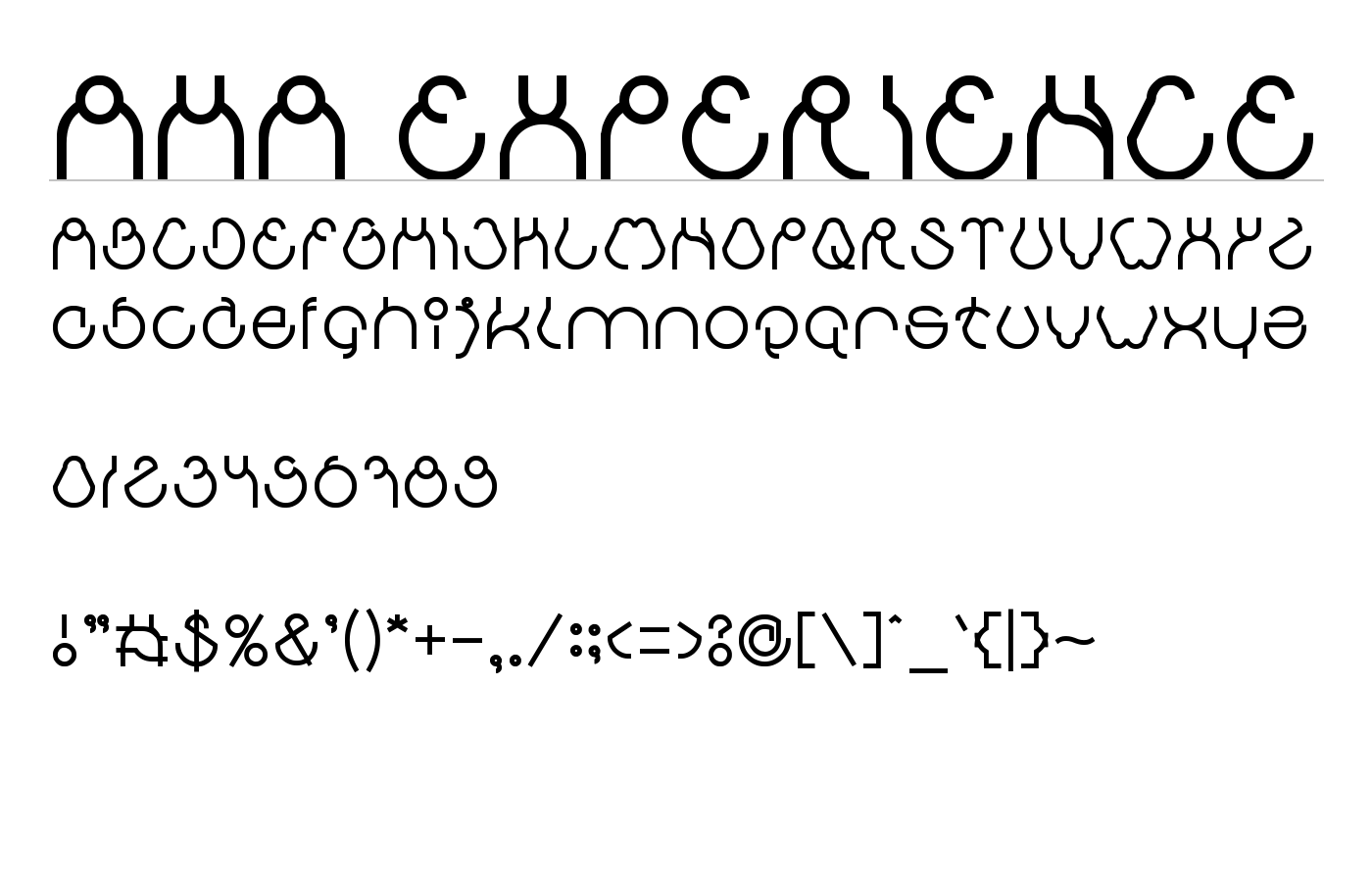
AHA EXPERIENCE is a modern, geometric sans serif font characterized by its thin lines and distinctive circular motifs incorporated into many characters, giving it a futuristic, playful feel. Its clean, open structure with consistent stroke weight and unique letterforms makes it ideal for creative branding, digital projects, and eye-catching headlines where a contemporary and innovative look is desired. This font shines in tech, fashion, and entertainment contexts, offering a memorable style that balances readability with artistic flair.
AHA EXPERIENCE Font
About AHA EXPERIENCE Font